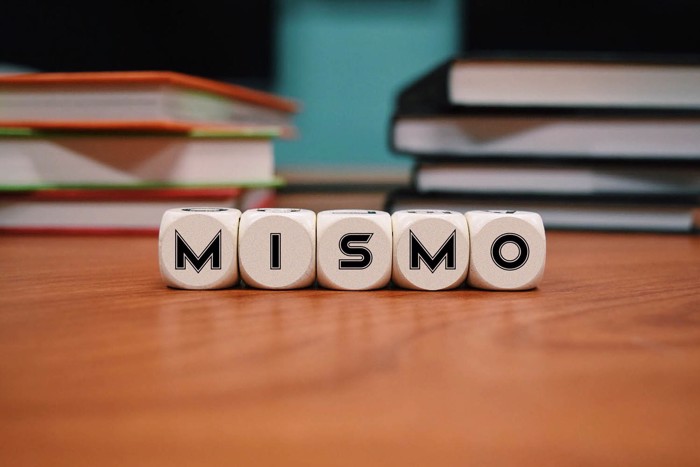
Mismo Font
About Mismo Font
Fat Style
Fat Italic Style
Key Features:
Bold Elegance: The font exudes a sense of bold elegance, making it perfect for headlines, titles, and impactful design elements.
Versatility: MISMO is highly versatile, suitable for a wide range of design applications, from web design to print media.
Distinctive Characters: The font features distinct and carefully crafted characters that add a unique touch to your projects, enhancing readability and visual appeal.
Modern Design: MISMO is designed with a modern aesthetic in mind, staying current with contemporary design trends.
Ideal Usage:
Ideal for headings, banners, posters, logos, and any design project where a bold and modern typography style is desired.